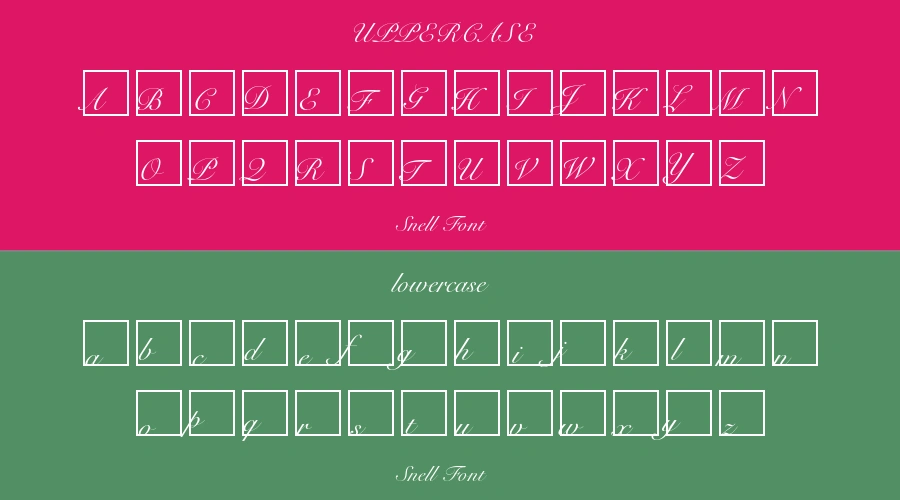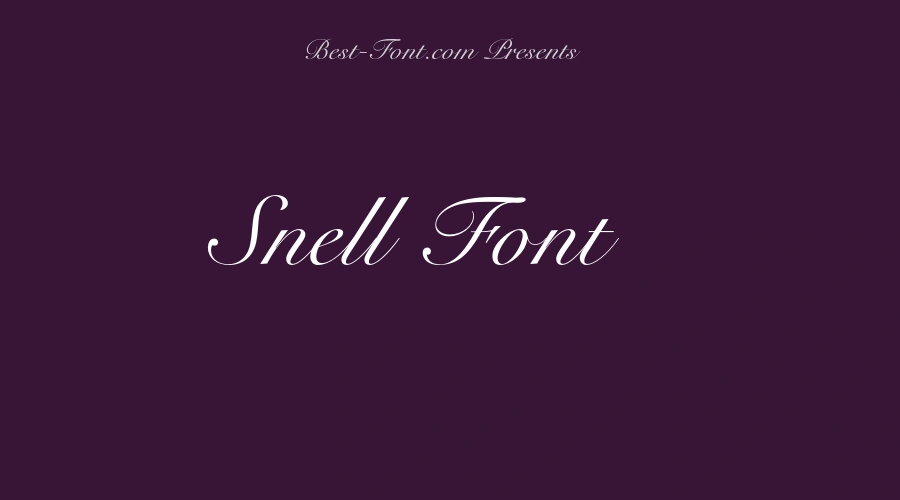
About Snell Font
Snell Font represents a sophisticated approach to type design, balancing tapered strokes with legibility. Perfect for social media content, this font family showcases impressive expressiveness and market appeal throughout its character set. Designers appreciate its versatility and reliability.
Designers will appreciate nuanced touches including graceful curves and kerning pairs, adding sophistication to any project. These features become apparent in creative titles, where color application matters most. The careful treatment of joint construction and market positioning ensures optimal performance.